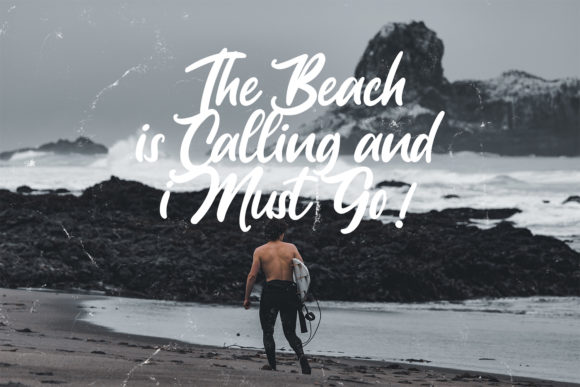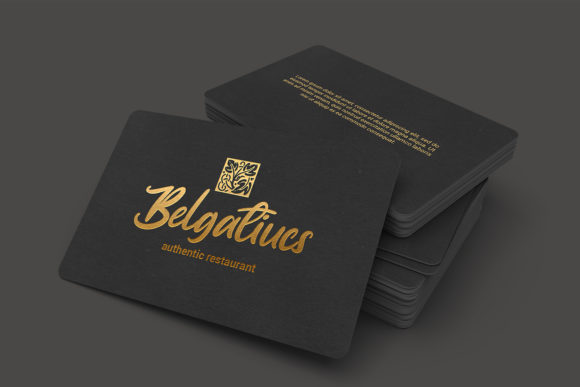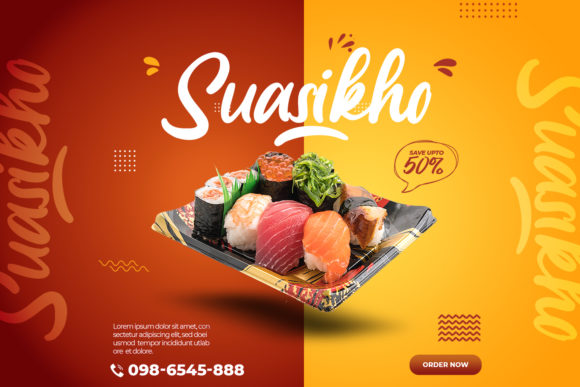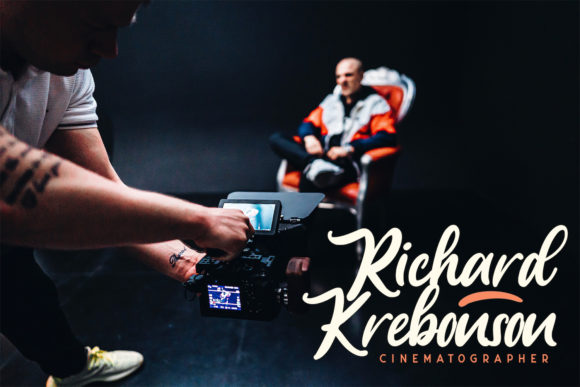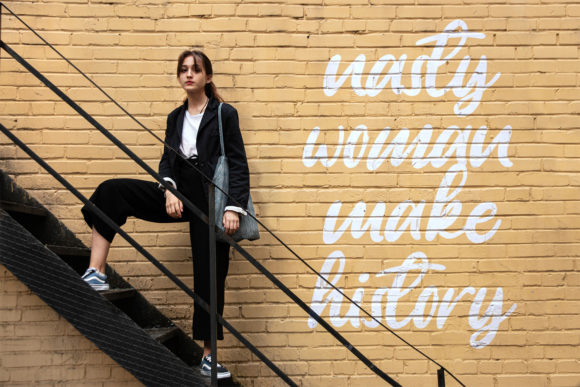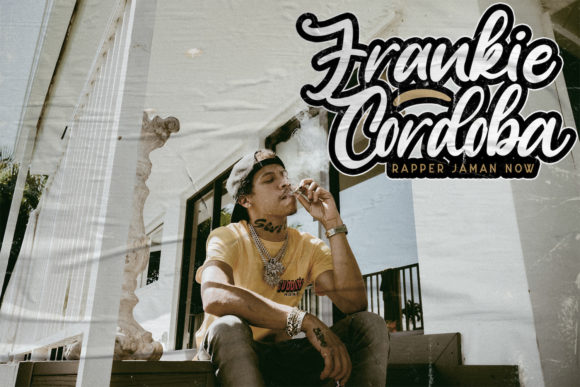
The Perfect Blend of Whimsy and Elegance: Anjelica Font
Have you ever found yourself doodling in a notebook, lost in a world of creativity, and suddenly, a beautiful handwritten script emerges? That’s exactly the kind of magic that Anjelica Font embodies. This charming font is designed to transport you to a world of authenticity and charm, perfect for adding a personal touch to your designs.
Whether you’re crafting wedding invitations, creating stunning social media posts, or designing adorable greeting cards, Anjelica Font is the perfect companion. Its flowing lines and cute charm make it a valuable asset for designers looking to add a unique touch to their projects. With Anjelica Font, you can infuse your designs with an air of elegance and whimsy, making them truly unforgettable.
Anjelica Font Key Features
- Font Family: Anjelica
- Font Style: Script
- Unique Characteristics: Elegant, cursive script design; perfect for invitations, greeting cards, and other creative projects
Designer Review: Anjelica Font
I recently had the chance to work with the Anjelica Font, and I must say, it’s a lovely addition to any design project. Here are some of its standout features:
- ✨ Elegant and sophisticated feel, perfect for luxury brands or high-end designs.
- ✨ Wide range of font weights and styles to choose from, making it versatile for various design needs.
- ✨ Excellent legibility, even at smaller font sizes, making it suitable for body text and headings.
However, like any font, Anjelica also has its limitations:
- ⚠️ Some users may find it too ornate or fancy for certain design styles or themes.
- ⚠️ Limited support for languages that require complex scripts or special characters.
- ⚠️ May not be suitable for digital screens with low resolution or pixel density.
Overall, I think Anjelica is a great choice for designers who want to add a touch of elegance and sophistication to their projects. While it may not be the best fit for every design need, it’s definitely worth considering for the right project.
Tip: Use Anjelica Font for elegant and sophisticated designs, such as wedding invitations or luxury branding.
Tip: Use Anjelica Font for high-end typography projects, such as magazine covers or corporate branding.
Tip: Use Anjelica Font for professional presentations or documents that require a touch of elegance.
Anjelica Font is ideal for:
- Luxury branding and marketing materials
- High-end typography projects
- Professional presentations and documents